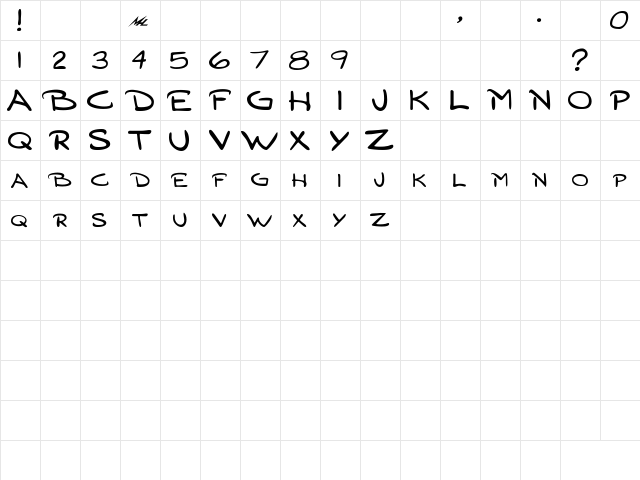
Cling Bold
Cling is a composed and adaptable typeface that performs quietly and consistently across a wide range of design contexts. Its bold stroke weight gives it real presence on the page.